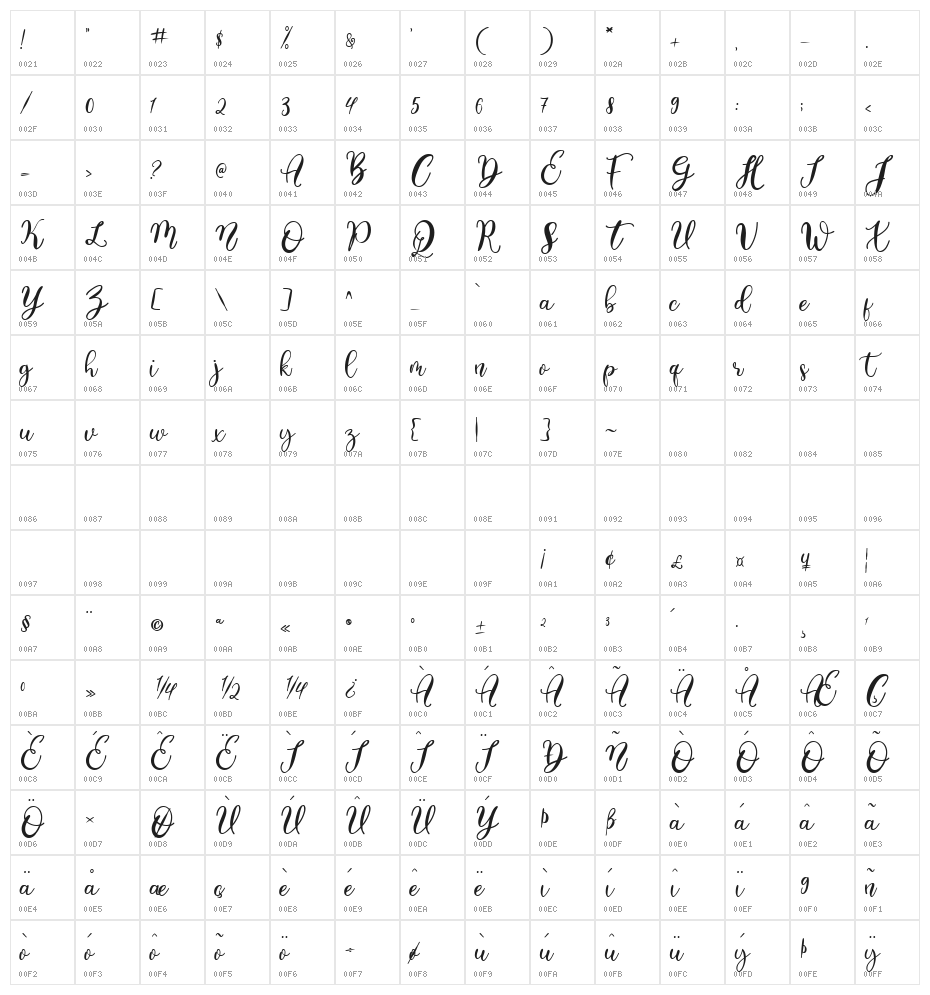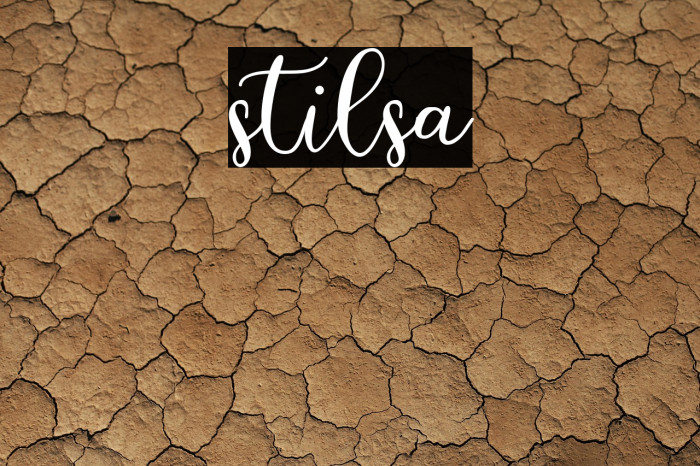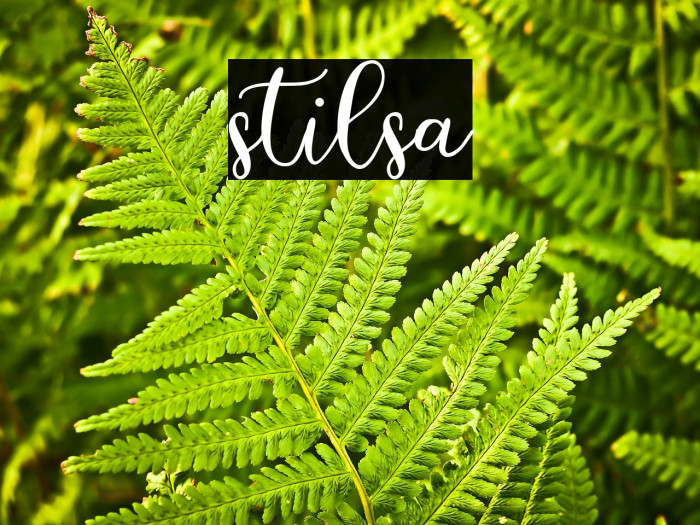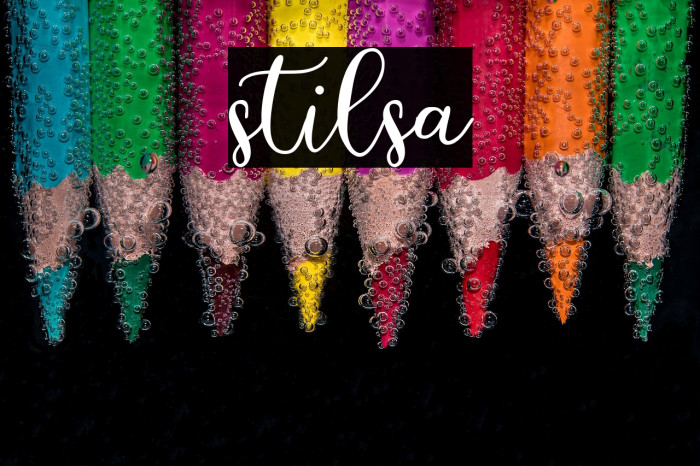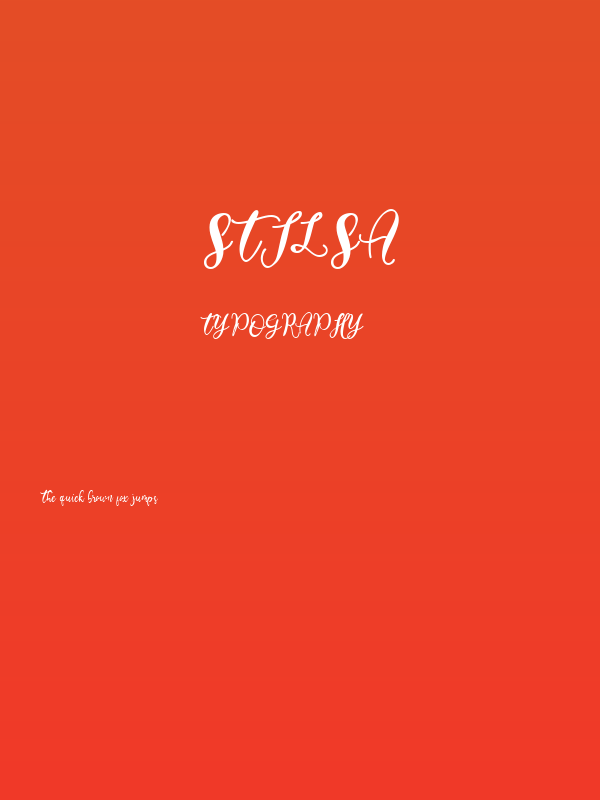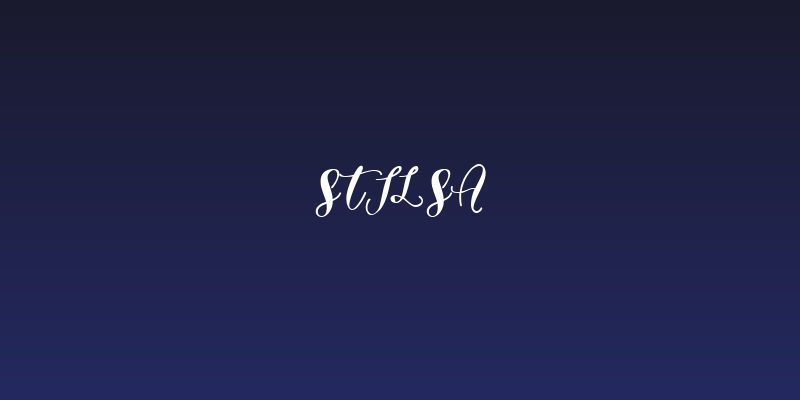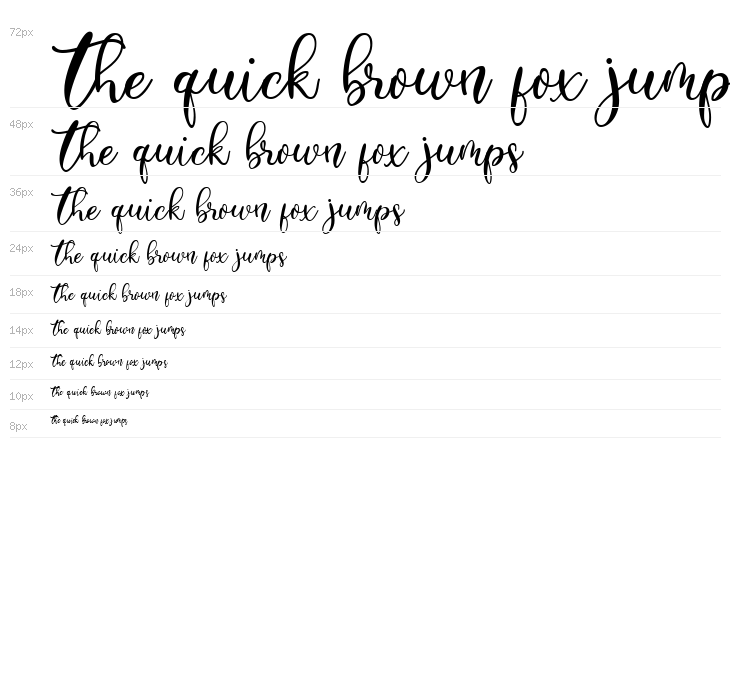
stilsa Font
stilsa Description
This font features an elegant and flowing script style, characterized by its smooth, cursive letterforms that exude a sense of sophistication and grace. The uppercase letters are particularly ornate, with sweeping curves and loops that add a decorative flair. The lowercase letters maintain a consistent flow, making them highly readable despite their intricate design. The numerals and special characters are crafted with the same attention to detail, ensuring a cohesive look across all text elements. This font is ideal for projects that require a touch of elegance and style, such as wedding invitations, branding, and upscale packaging.
| Overall Style | Elegant, Decorative |
| Proposed Projects | Wedding invitations, branding, upscale packaging, greeting cards, and decorative signage. |